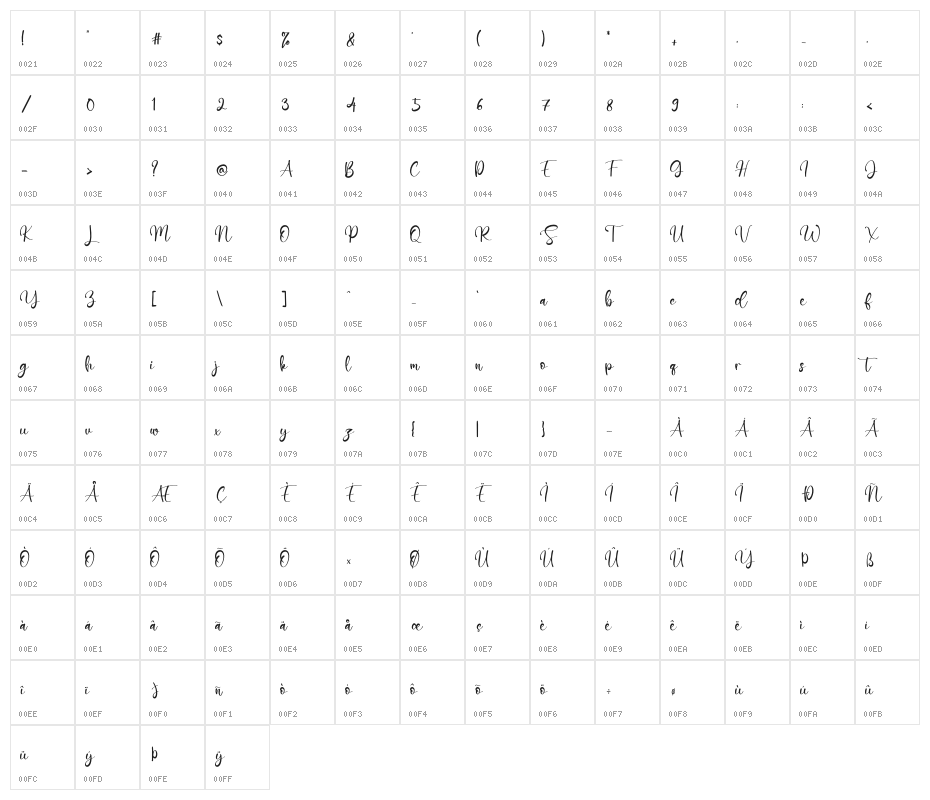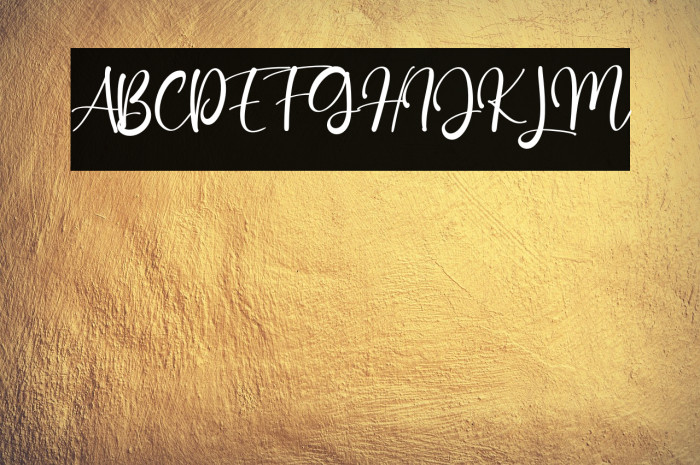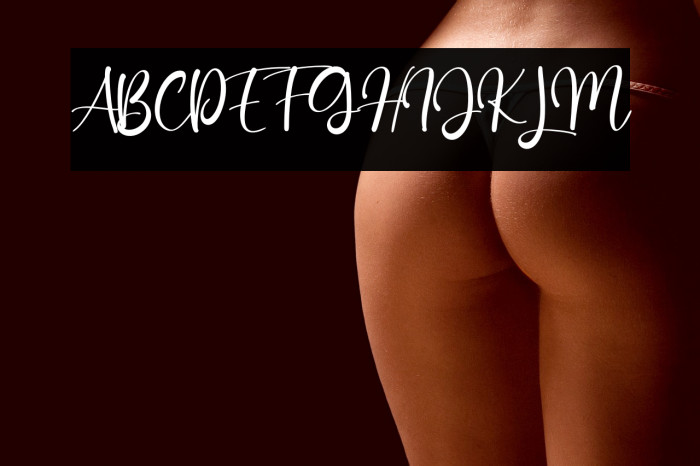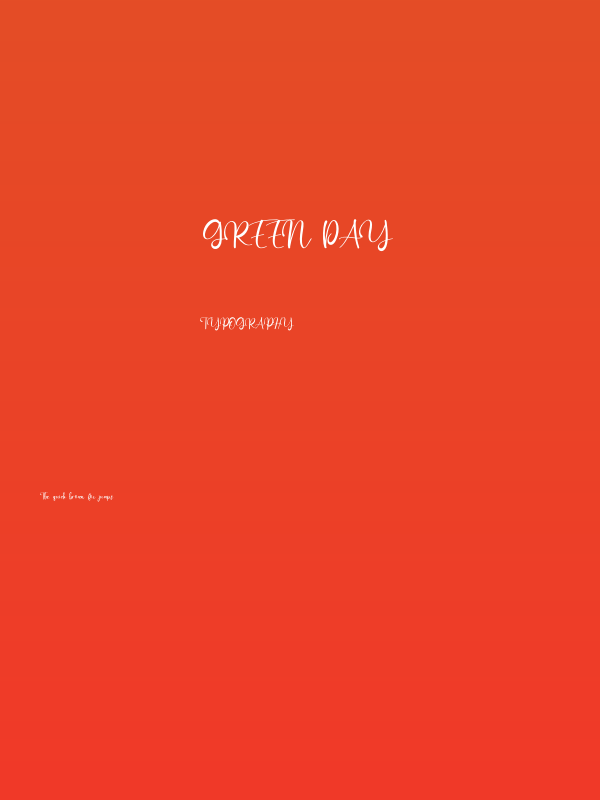
Green Day Font
Green Day Description
This font features a lively and expressive script style, characterized by its fluid, handwritten appearance. The uppercase letters exhibit a graceful, flowing form with elegant loops and curves, while the lowercase letters maintain a consistent, smooth stroke that enhances readability. The numerals are crafted with a similar flair, ensuring they blend seamlessly with the alphabetic characters. Special characters are thoughtfully designed to match the overall aesthetic, providing a cohesive look. The font's dynamic nature makes it suitable for projects that require a personal touch, such as invitations, greeting cards, and branding materials.